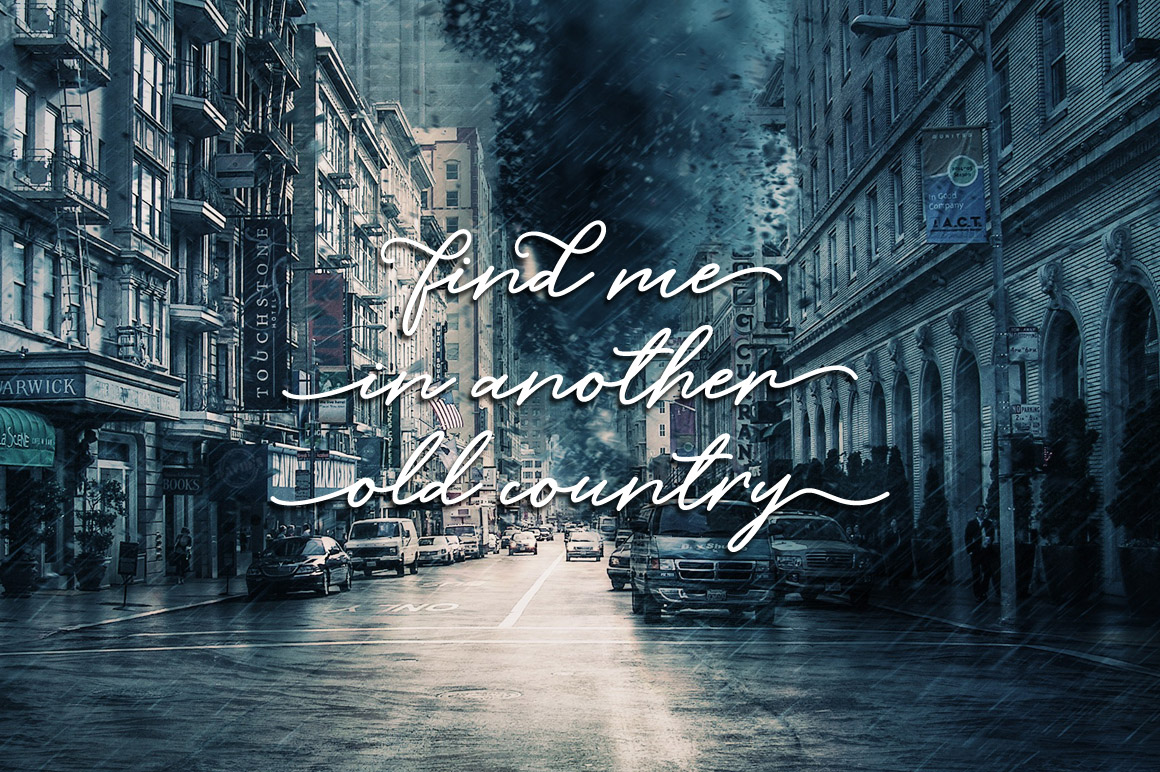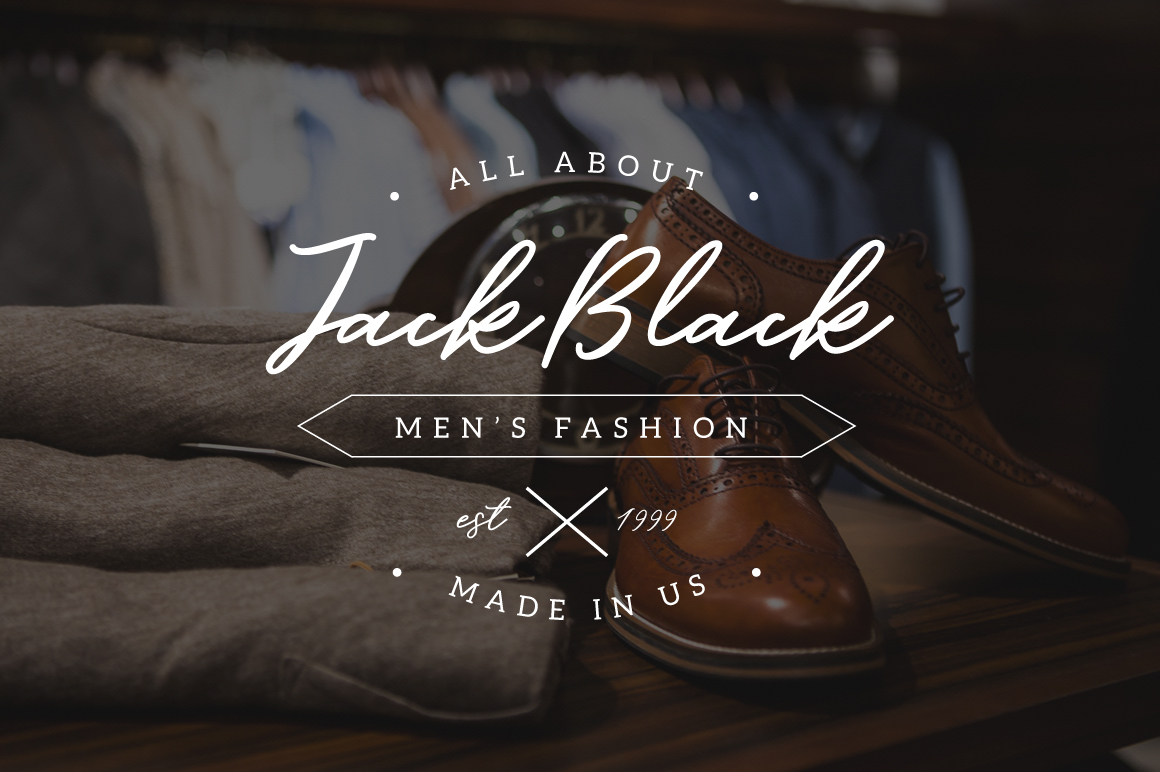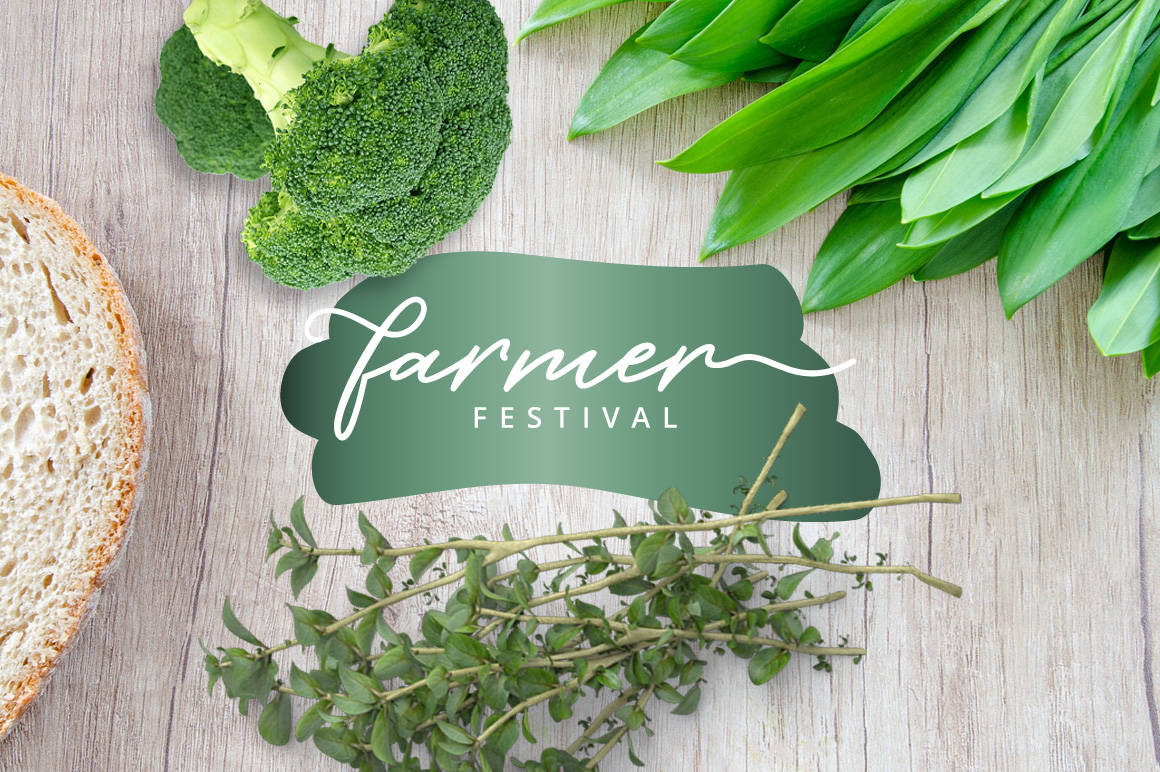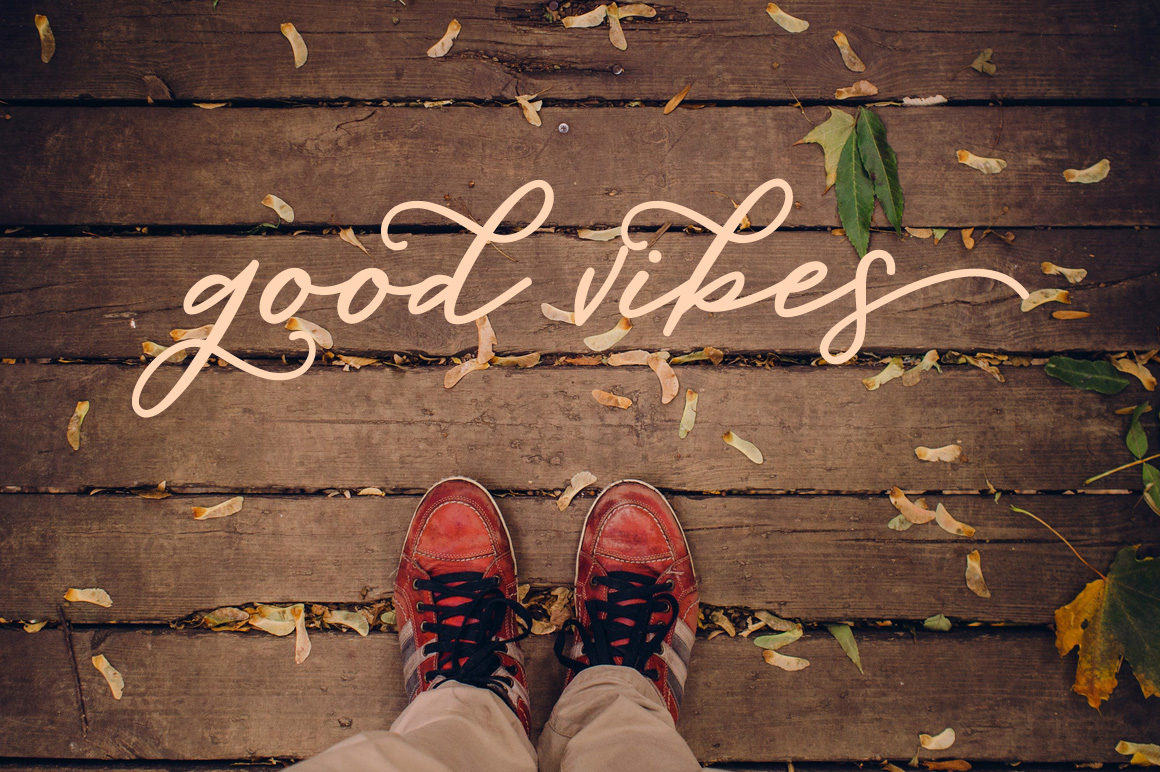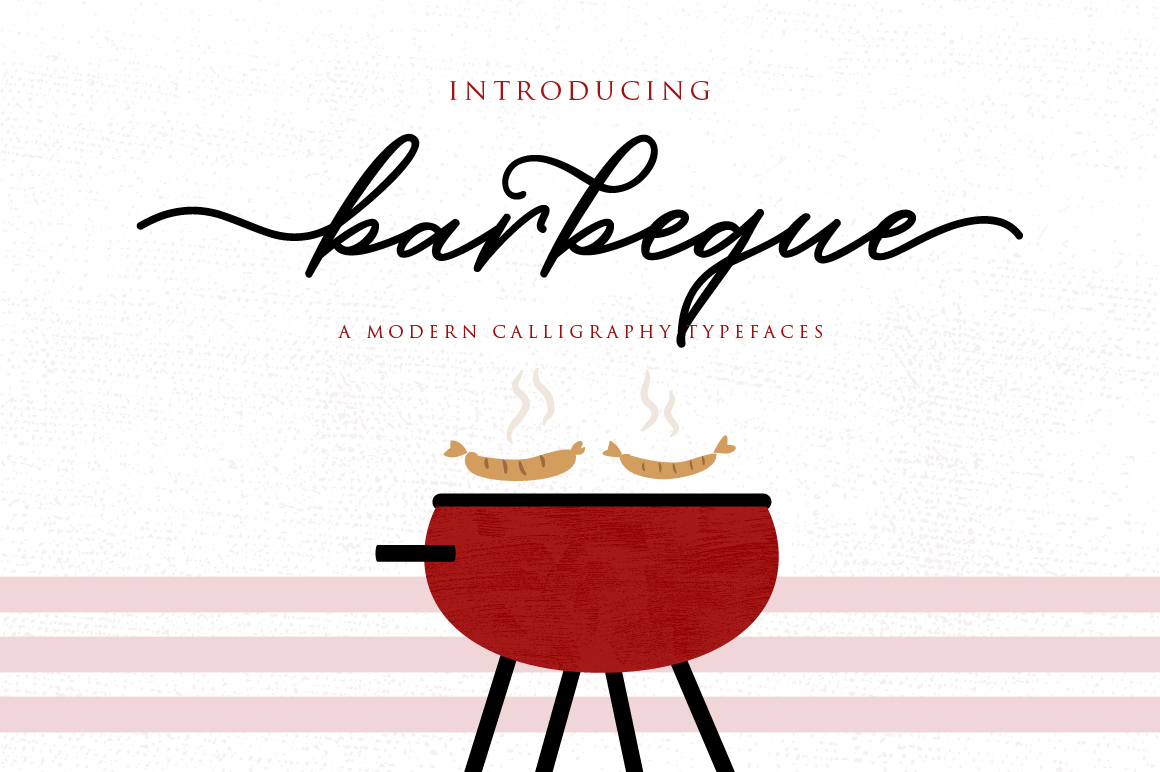
Barbeque Script Font
Each letter has been attentively written, Perfect for adding a elegant and unique touch to your lettering projects and branding,  Barbeque Fonts has that special nuance.